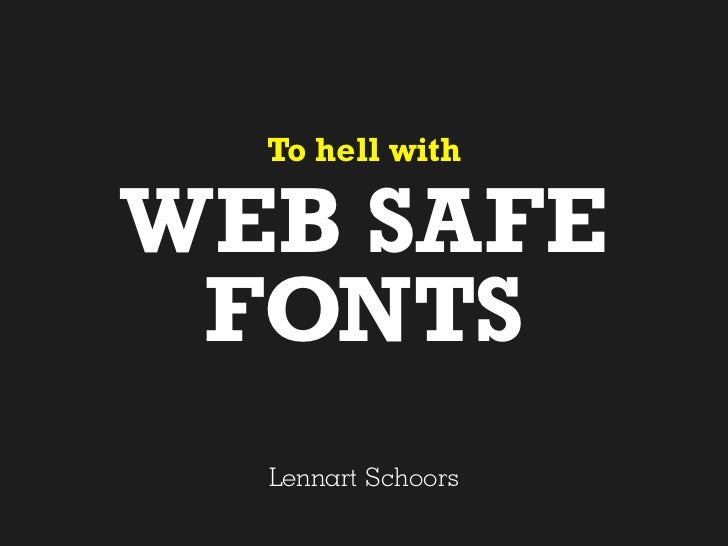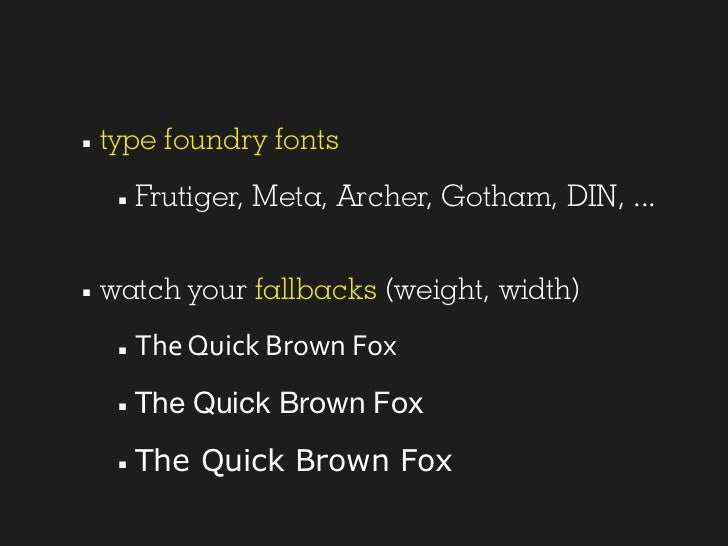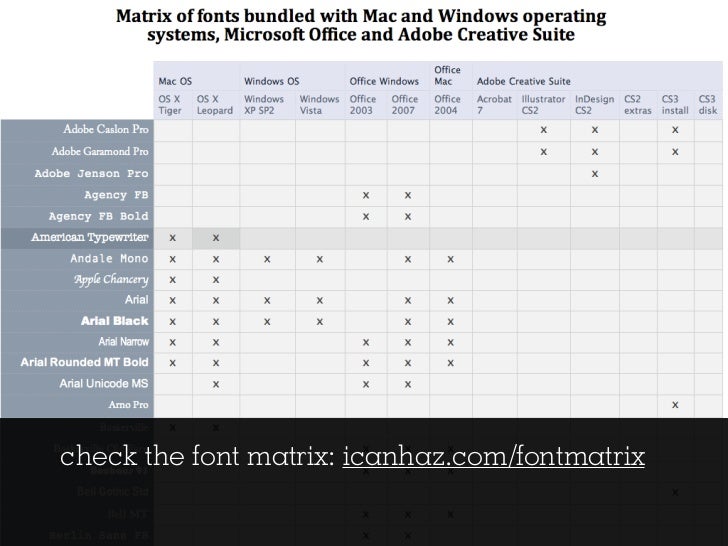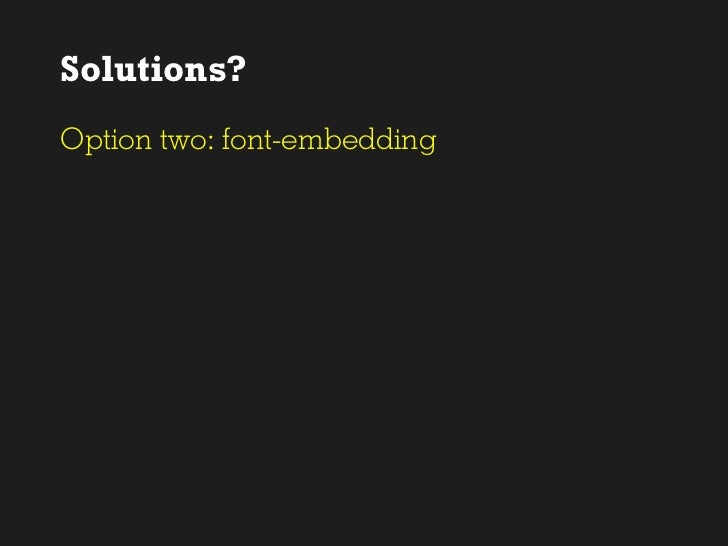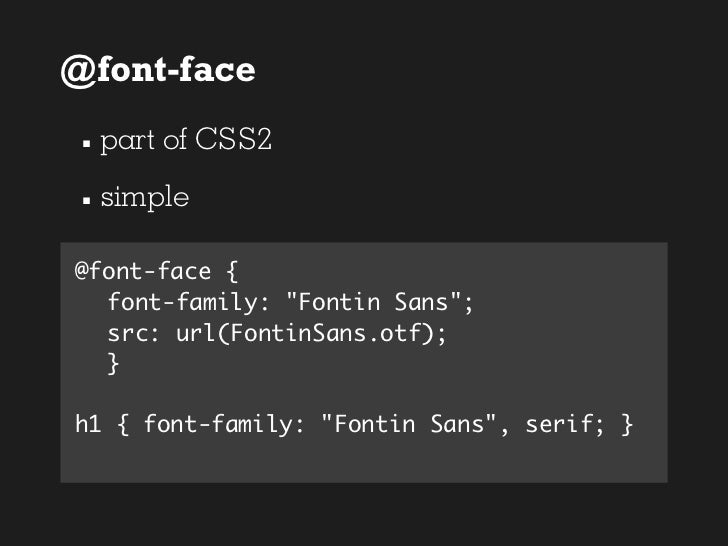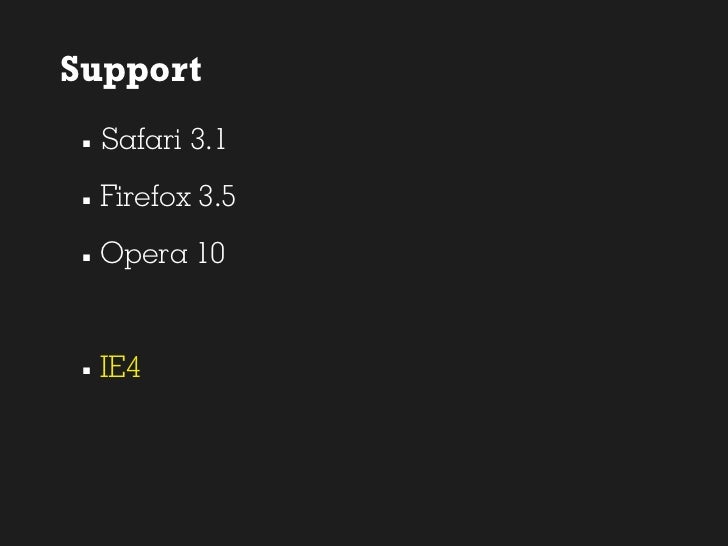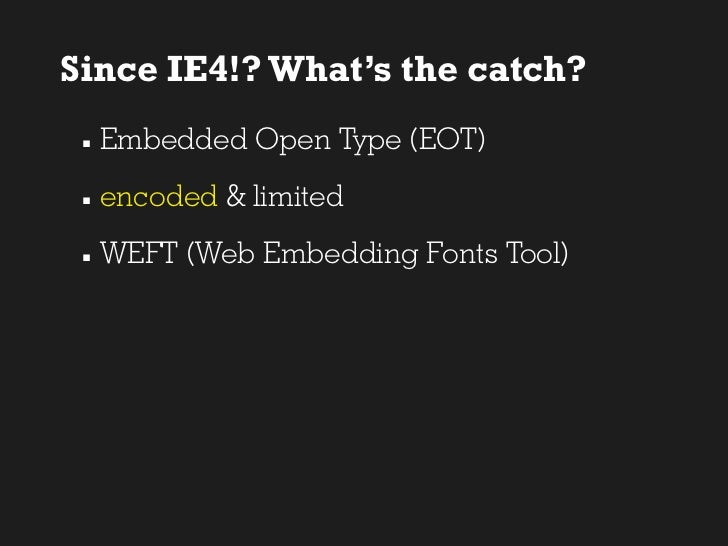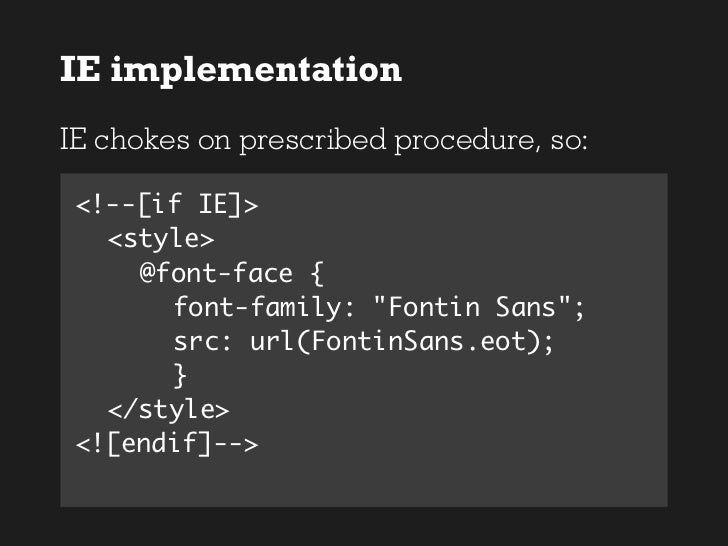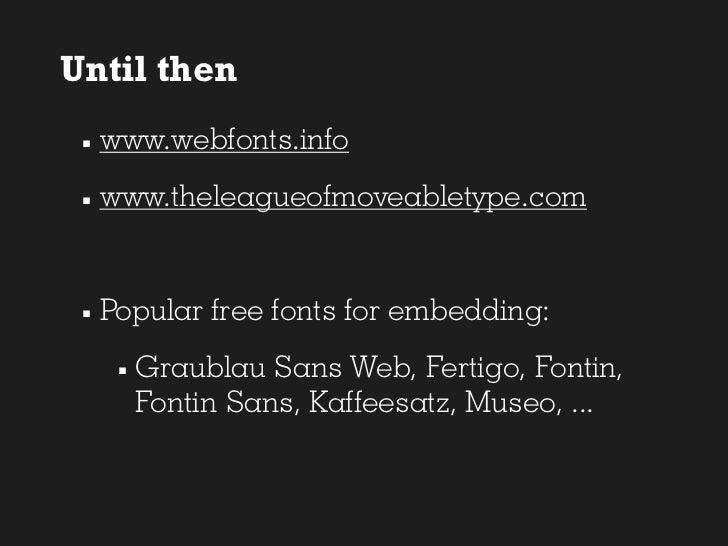
To Hell with Web Safe Fonts
1. To hell with WEB SAFE FONTS Lennart Schoors
3. Web Safe Fonts Fonts on the internet today
4. You can do cool things with Times New Roman
5. But still ... . Verdana . Arial (Helvetica if you’re lucky) . Lucida Grande . Georgia . limited, sometimes boring font stacks
6. Alternatives . image replacement, sIFR, Cufon, ... . accessibility . maintenance . often hard to get it just right . flash of content . dependency (Javascript, Flash) . more pain in the ass than they should be
7. Solutions? Option one: spice up your font stacks
8. font-family: Plantin, \"Plantin std\", \"Plantin\", \"Baskerville\", Georgia, \"Times New Roman\", serif;
9. Go wild! . Vista/Office fonts . Calibri, Candara, Corbel, Cambria, ... . Centhury Gothic, Rockwell, Garamond, Gill Sans, ... . (OS X) system fonts . American Typewriter, Futura, Optima, Palatino, Helvetica Neue (weights!), ...
10. . type foundry fonts . Frutiger, Meta, Archer, Gotham, DIN, ... . watch your fallbacks (weight, width) . The Quick Brown Fox . The Quick Brown Fox
11. check the font matrix: icanhaz.com/fontmatrix
12. Solutions? Option two: font-embedding
13. @font-face . part of CSS2 . simple @font-face { font-family: \"Fontin Sans\"; src: url(FontinSans.otf); } h1 { font-family: \"Fontin Sans\", serif; }
14. Support . Safari 3.1 . Firefox 3.5 . Opera 10 . IE4
15. Since IE4!? What’s the catch? . Embedded Open Type (EOT) . encoded & limited . WEFT (Web Embedding Fonts Tool)
16. WEFT 3.2 (°2003) – cumbersome and annoying
17. IE implementation IE chokes on prescribed procedure, so: <!--[if IE]> <style> @font-face { font-family: \"Fontin Sans\"; src: url(FontinSans.eot); } </style> <![endif]-->
18. The piracy issue . EOT = new standard? . fear of ‘DRM’ . Access Control Headers . Foundries are hesitant . Similar to music and movie industries . Why not experiment with hosted, licensed fonts?
19. Until then . www.webfonts.info . www.theleagueofmoveabletype.com . Popular free fonts for embedding: . Graublau Sans Web, Fertigo, Fontin, Fontin Sans, Kaffeesatz, Museo, ...
20. Summary: Get creative
21. Get creative! . Expand your font choice . Mix fonts (like em, strong, links, quotes, ...) . Use weights, font-styles, small caps, (font-stretch), ... . Mind variations in size and legibility . Test all fonts in your stack on all platforms
22. Rockwell, Helvetica Neue, Optima and Andale Mono on www.lensco.be
23. We got rid of the “web safe” colors, now let’s get rid of “web safe” fonts!